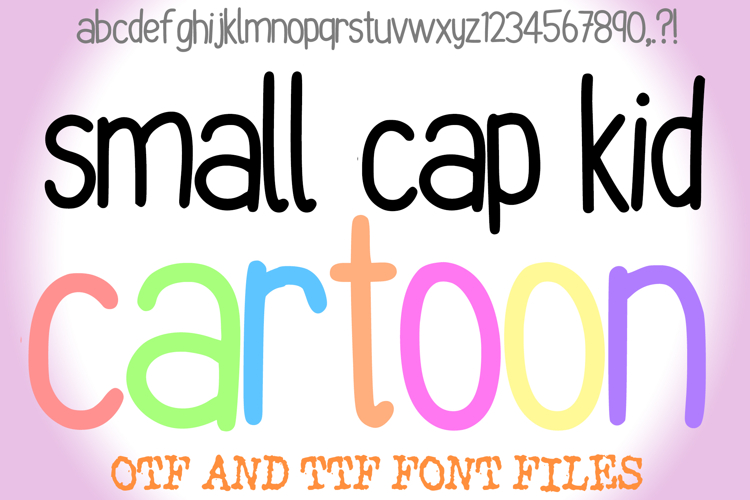
Small Cap Kid Cartoon Handwriting Alphabet Lettering Font
Introducing the Small Cap Kid Cartoon Font, the perfect typeface for bringing joy and clarity to your creative projects! This font features a beautifully rounded, legible, and fun sans-serif style that is ideal for young audiences.
The smooth, slightly bold lines are designed to look exactly like popular cartoon lettering, giving your designs an authentic hand-drawn bubble font aesthetic. It's an excellent choice for educational materials, children’s book covers, flashcards, and any project that needs a friendly, approachable voice.